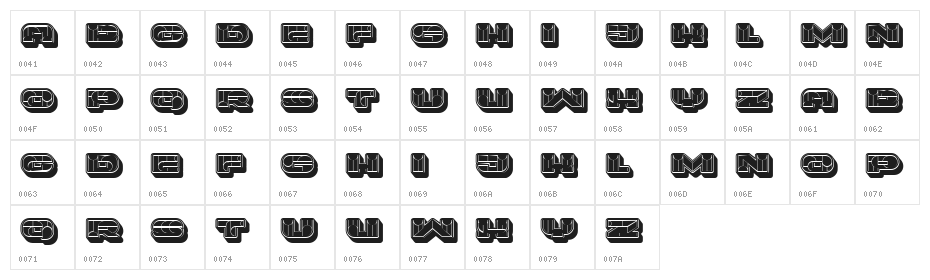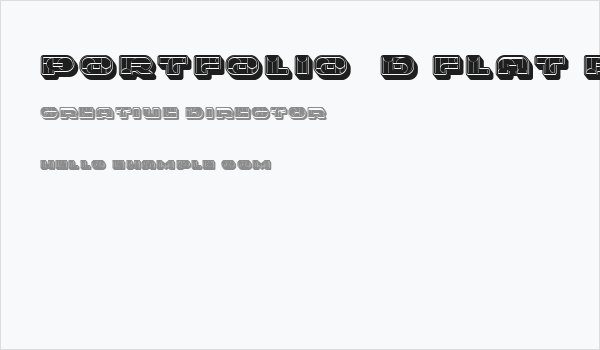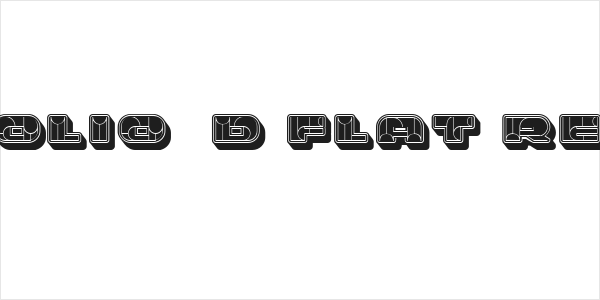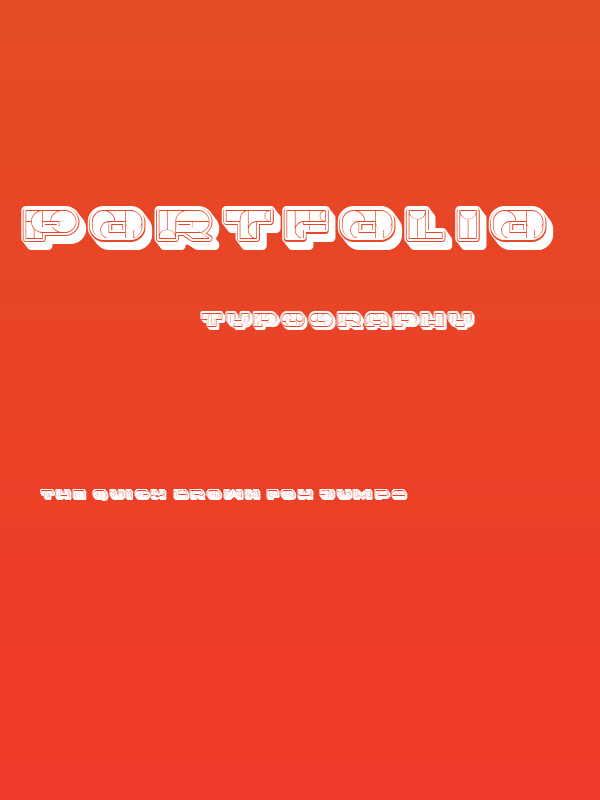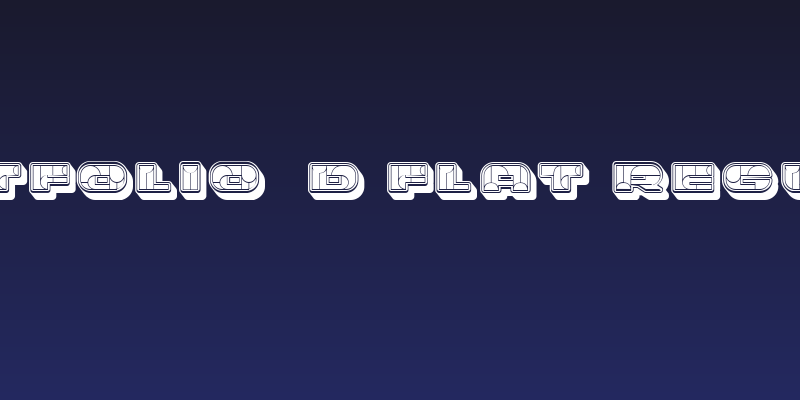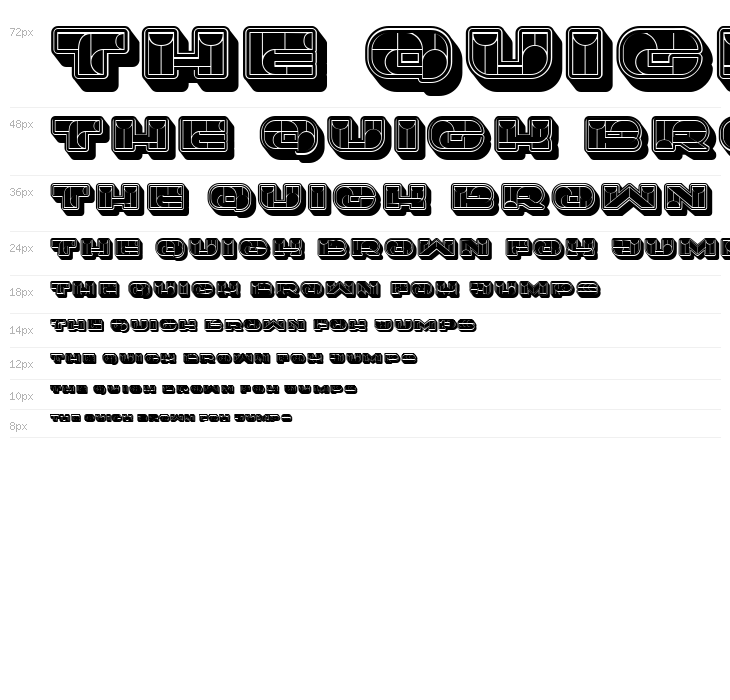
Portfolio 3D Flat Regular Font
Portfolio 3D Flat Regular Description
This font features a bold, three-dimensional appearance with a flat, geometric style. The characters are outlined with a thick black border, creating a strong contrast against the inner white space. The design is reminiscent of retro or arcade-style fonts, giving it a playful yet impactful look. Each letter is crafted with precision, maintaining a consistent width and height, which enhances its readability despite the complex design. The font's unique 3D effect is achieved through clever use of shading and perspective, making it ideal for eye-catching headlines or titles.
| Overall Style | Retro, Decorative |
| Proposed Projects | Ideal for video game titles, retro-themed posters, or any project requiring a bold, eye-catching display font. |